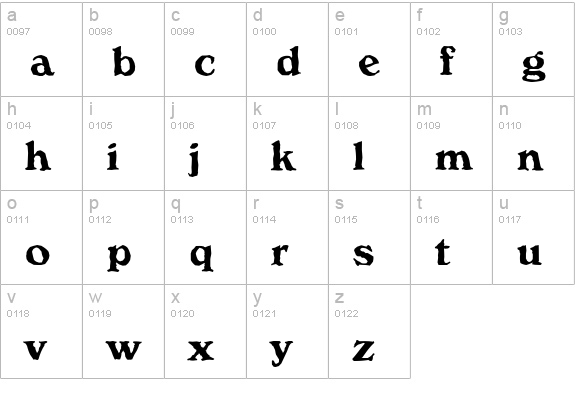
VeronaAntique-Bold Font Details
VeronaAntique-Bold is a strong, high-contrast variant in the VeronaAntique typeface family \xE2\x80\x94 well suited to headlines, attention-grabbing titles, and strong calls-to-action.
VeronaAntique-Bold is a stunning and elegant font that exudes a sense of timeless sophistication. Its bold and sharp letterforms make a strong statement, perfect for headlines, titles, and other attention-grabbing designs. The classic yet modern style of VeronaAntique-Bold adds a touch of luxury and refinement to any project. This versatile font is ideal for a variety of design purposes, whether it be branding, advertising, packaging, or editorial layouts. Its readability and distinct character make it a standout choice for projects that require a bold and impactful typeface. And the best part? VeronaAntique-Bold is available for free download at FontsMarket.com, making it easily accessible to designers and creatives looking to elevate their work with a touch of sophistication. Don't miss out on the opportunity to add this beautiful font to your collection today!